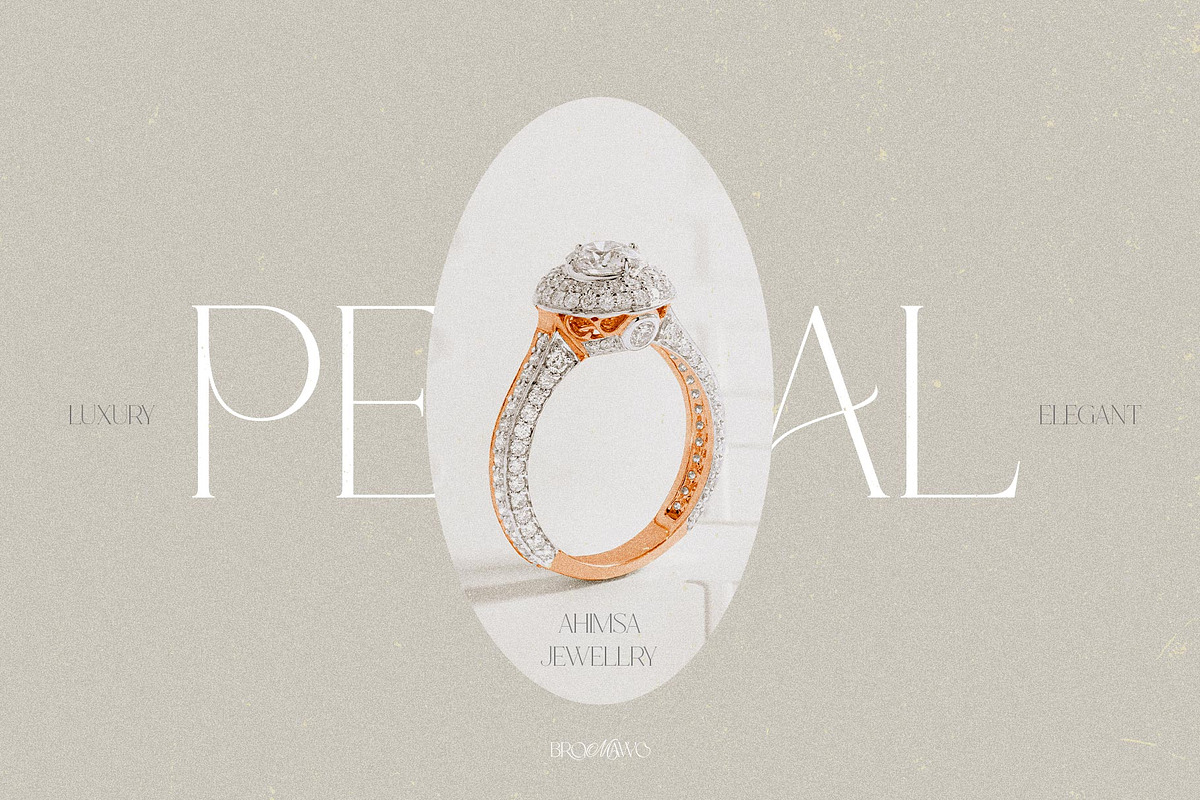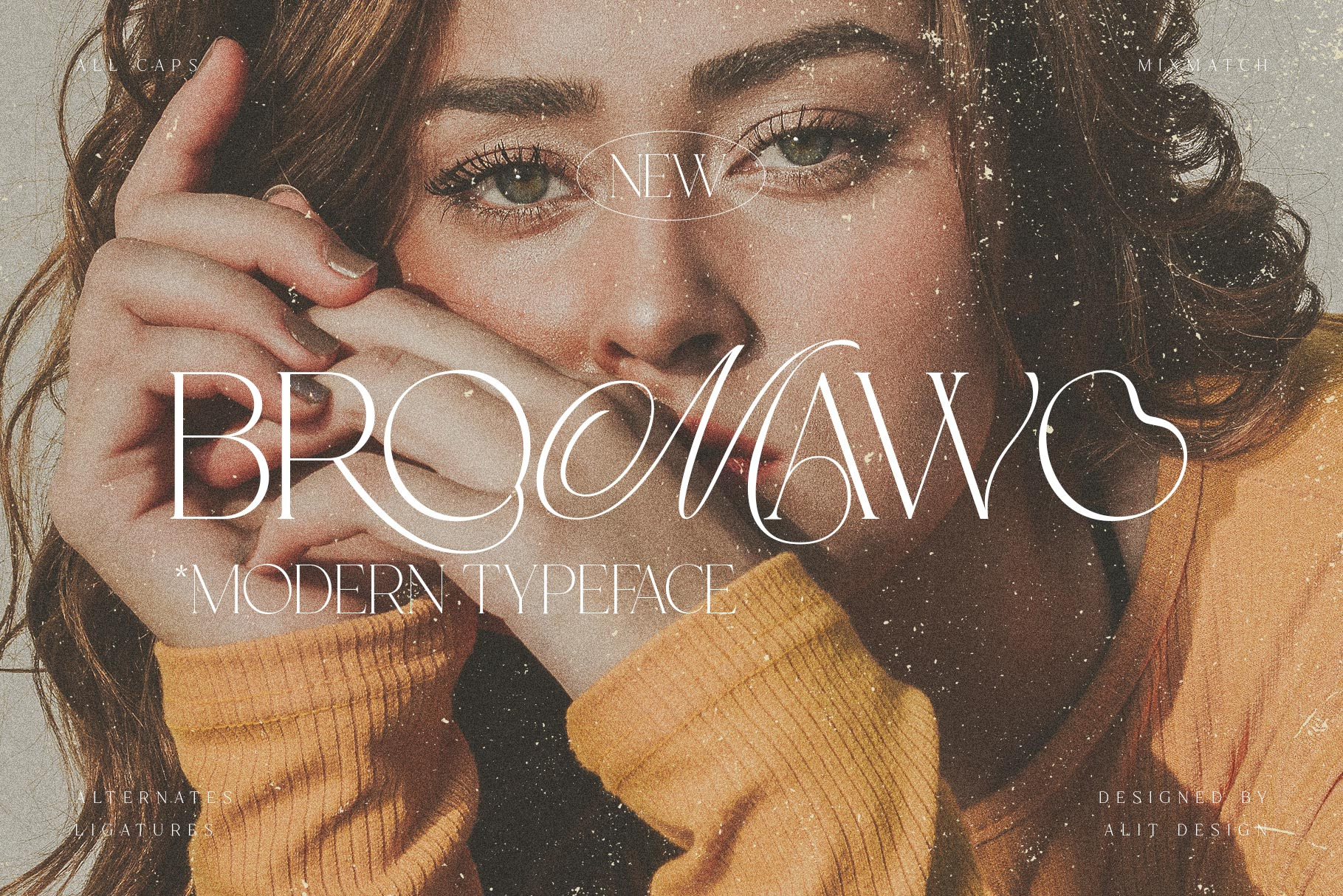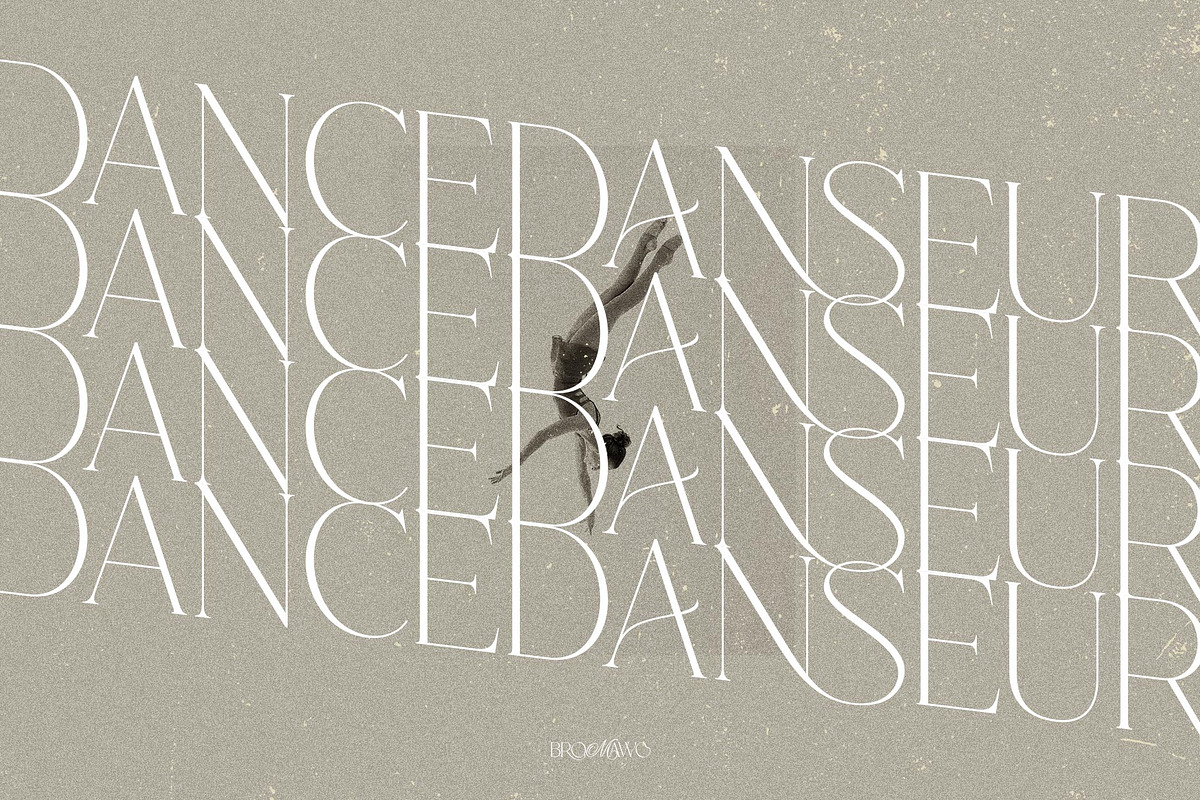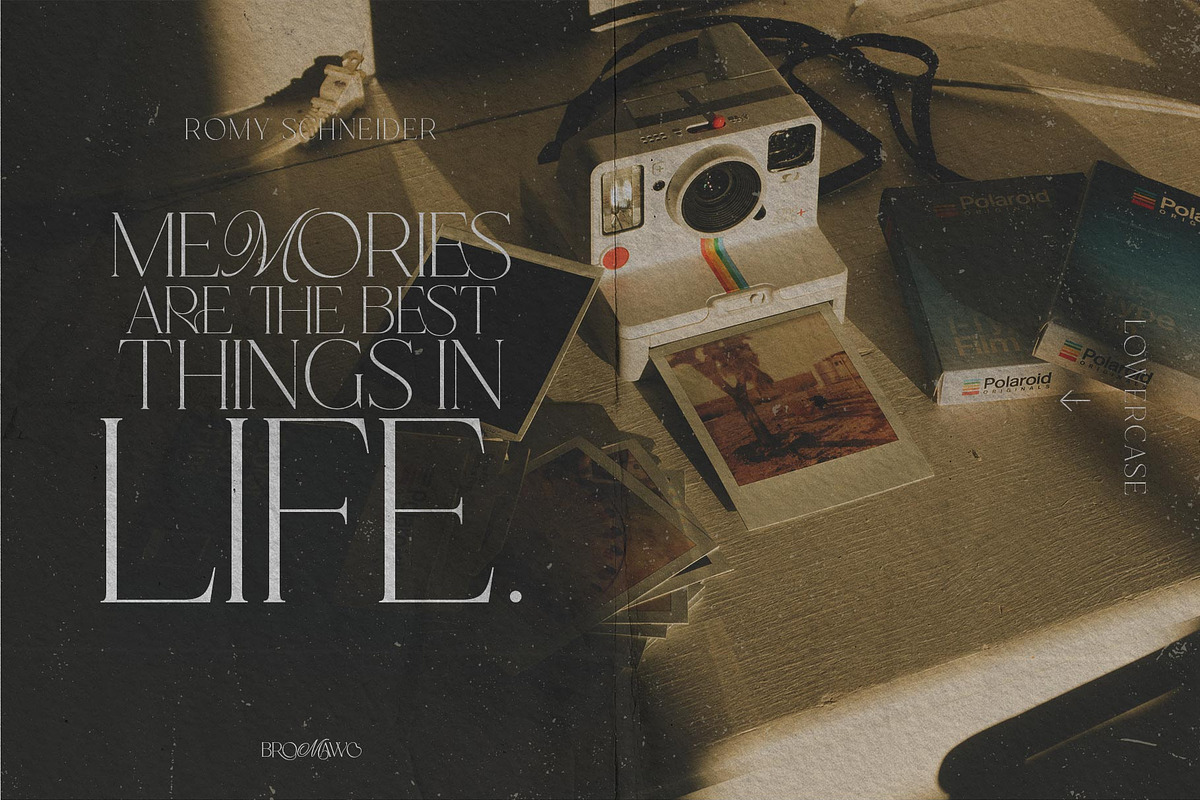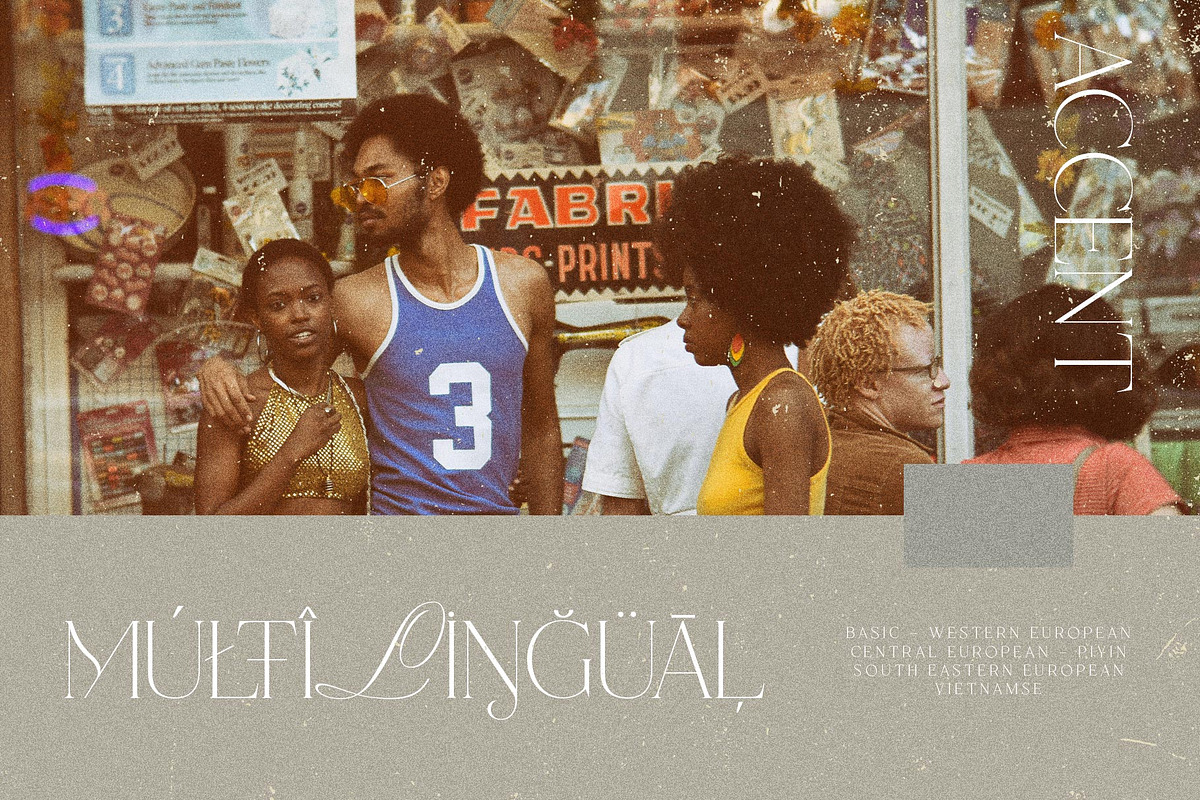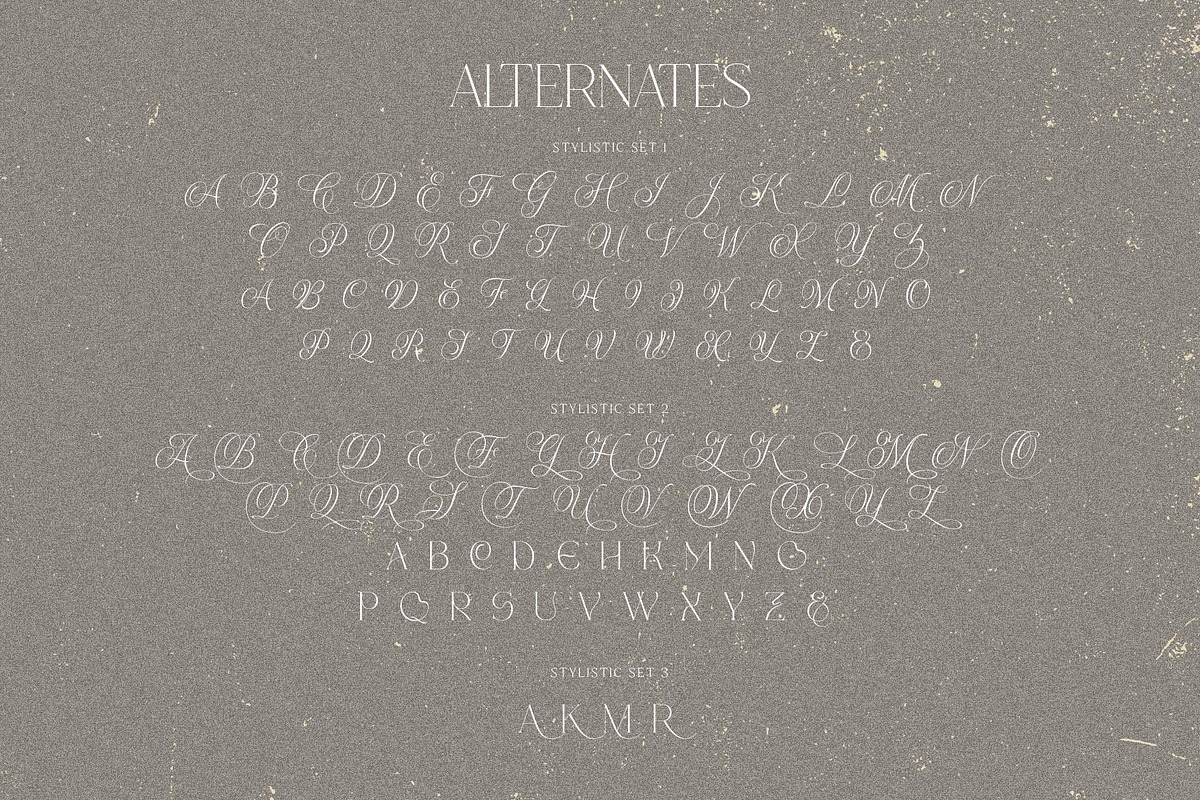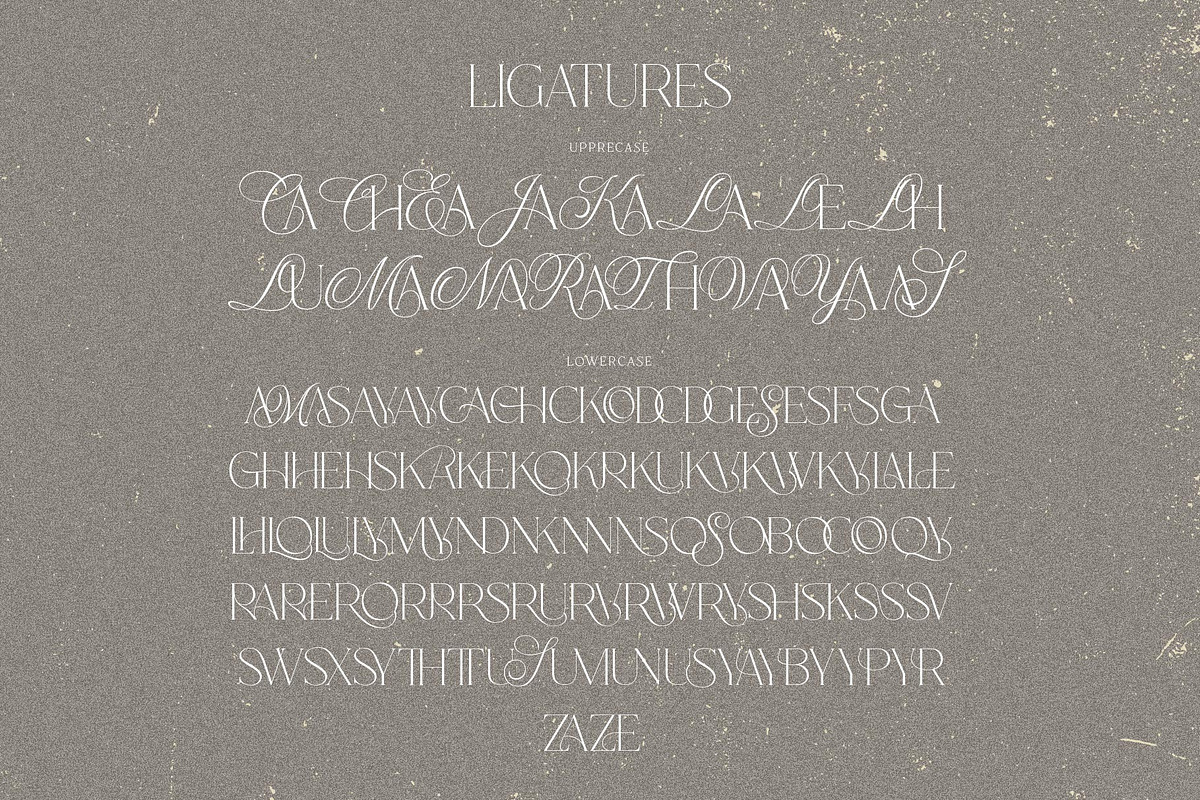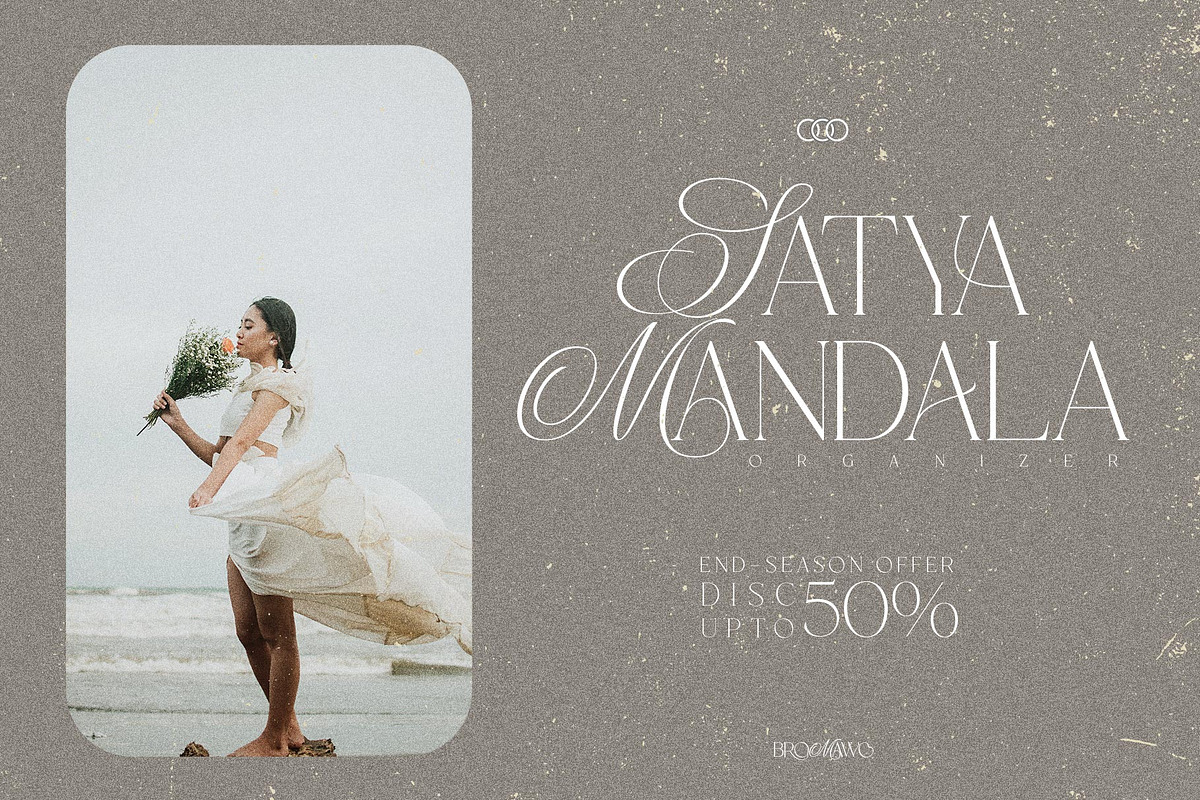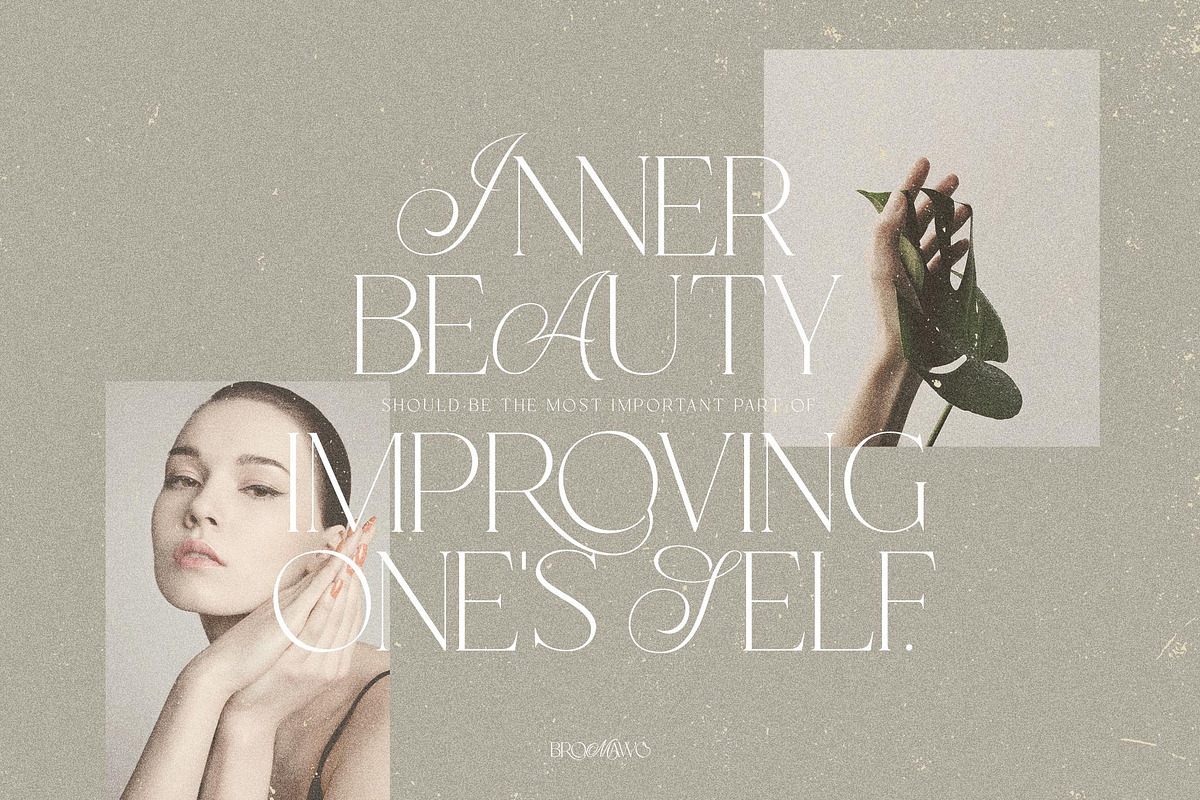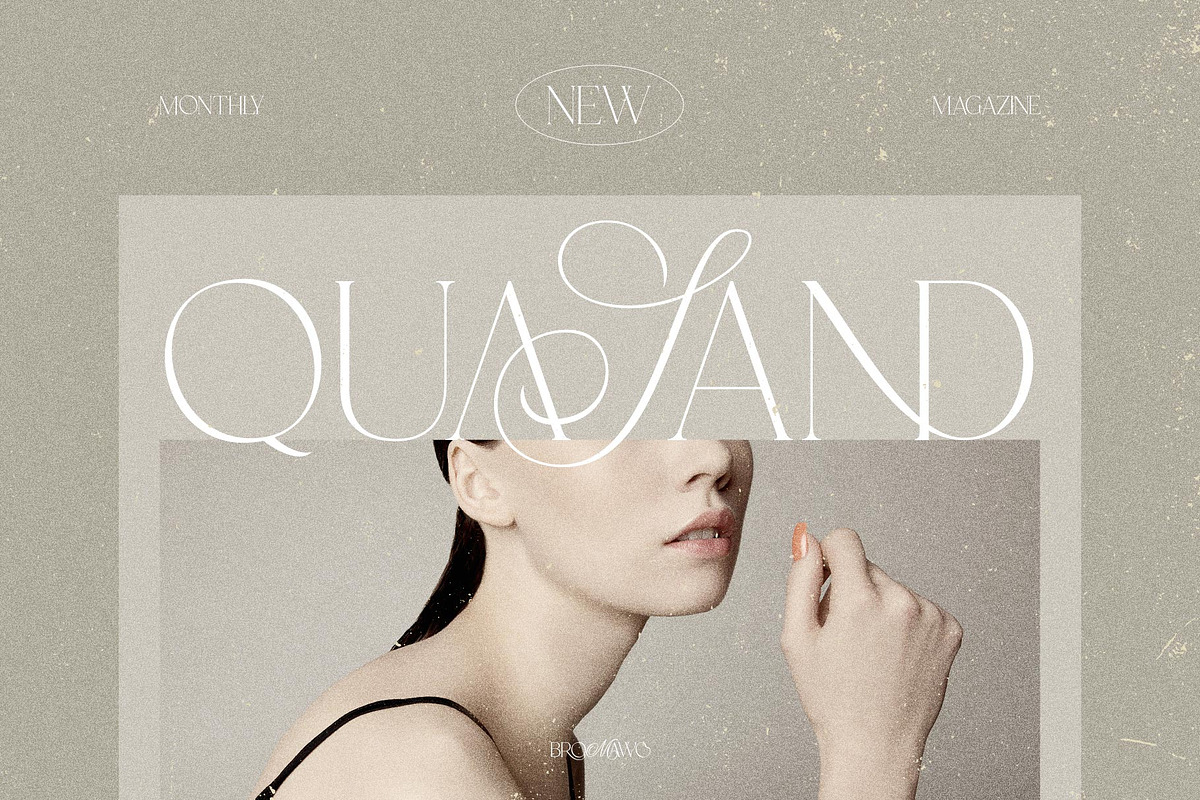
Bromawo elegant typeface
Presenting the BROMAWO typeface from alitdesign.
BROMAWO font is designed by combining an elegant script font with a simple and charming serif font style. This font has a modern serif style combined with elegant script-style letters that make the BROMAWO font look different and unique from the fonts you have on your computer collection.
BROMAWO is perfect for magazine cover designs, brochures, flyers. Instagram ads, Canva Design and so on with unique and modern concepts. besides that this font is very easy to use both in design and non-design programs because everything changes and glyphs are supported by Unicode (PUA).
The "BROMAWO"contains 668 glyphs with many unique and interesting alternative options.
Language Support : Latin, Basic, Western European, Central European, South European,Vietnamese.